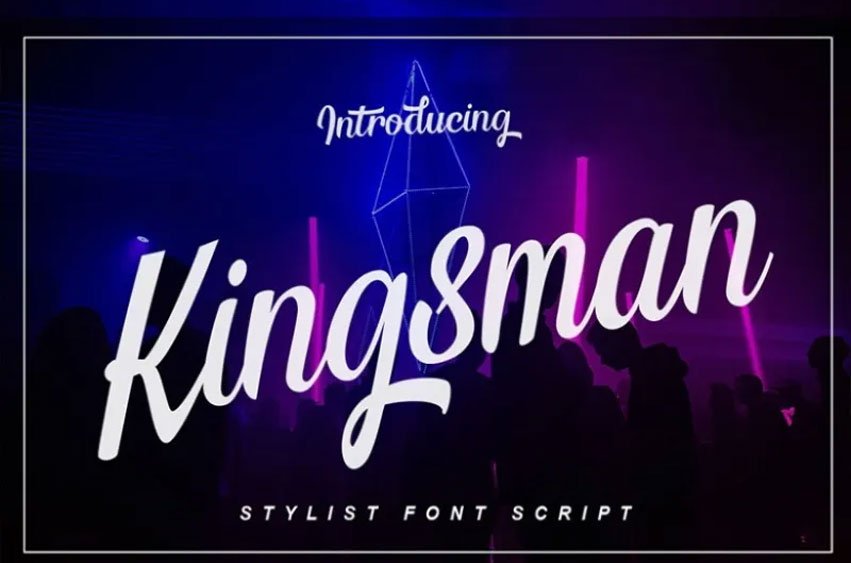
Kingsman Script Font
Kingsman Script Font is a fresh script font. It is enjoyable to apply it because every word can be changed to you. Introducing Kingsman Script Font! Kingsman is a Dual Style Font! Has a different font and some ligatures. We maintain this font to be elegant, readable, stylish, and eye-catching.